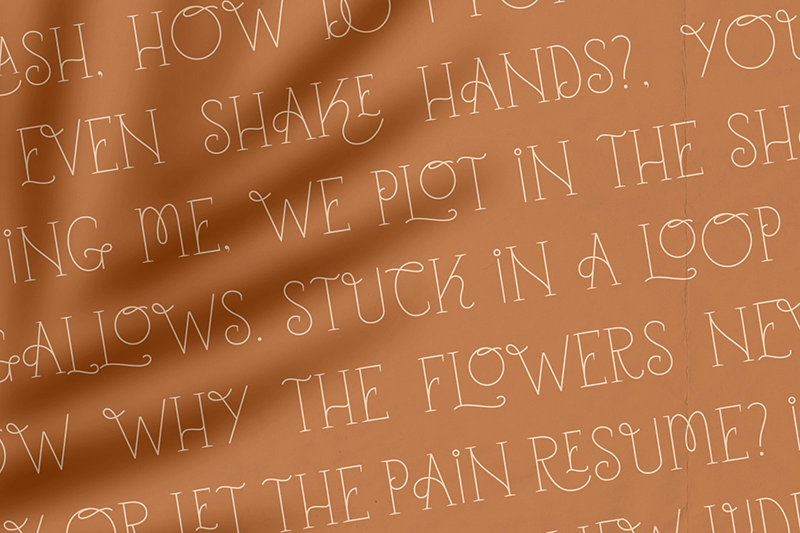
Get your hands on Elysia, the modern font that draws inspiration from vintage neogothic lettering. This versatile font has a dual personality that�s perfect for various projects, such as wedding invitations, branding, magazine illustrations, and more. And the best part? You can download Elysia for free! Don�t miss out on the chance to add some fun and personality to your next project. Download Elysia now! Want all the features? Get the full version now! https://go.factory738.com/uszDob |